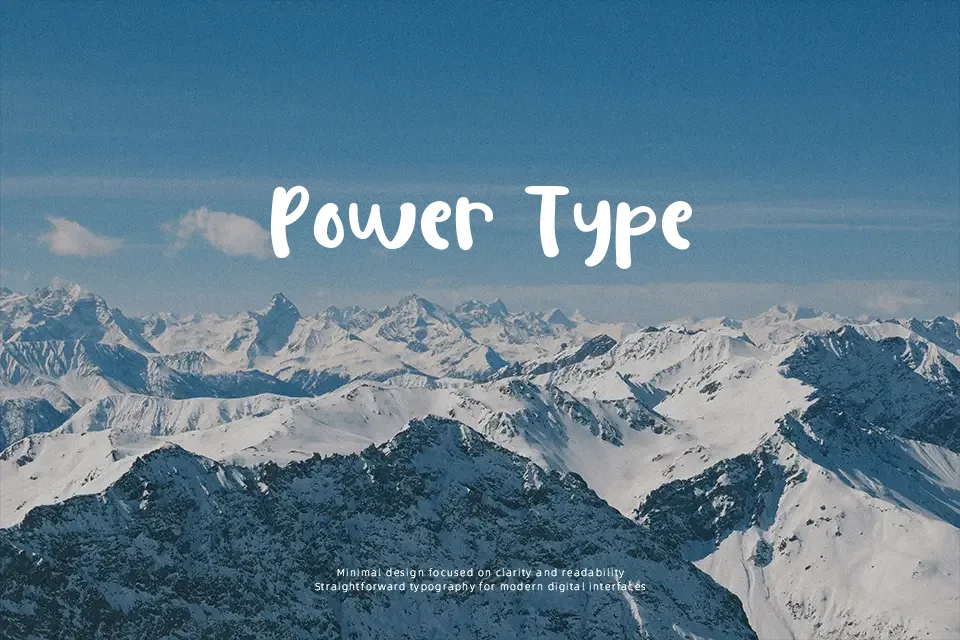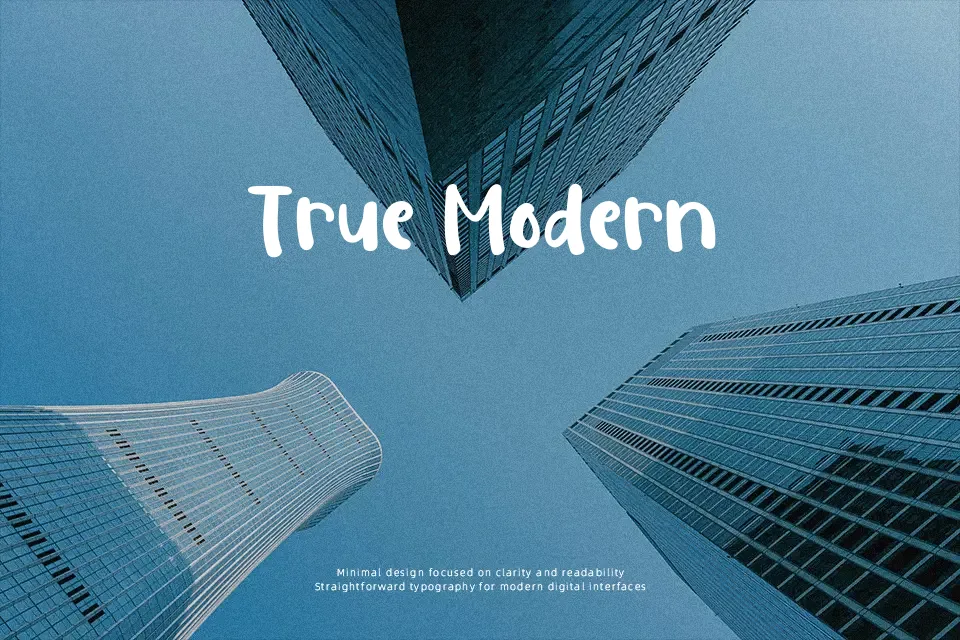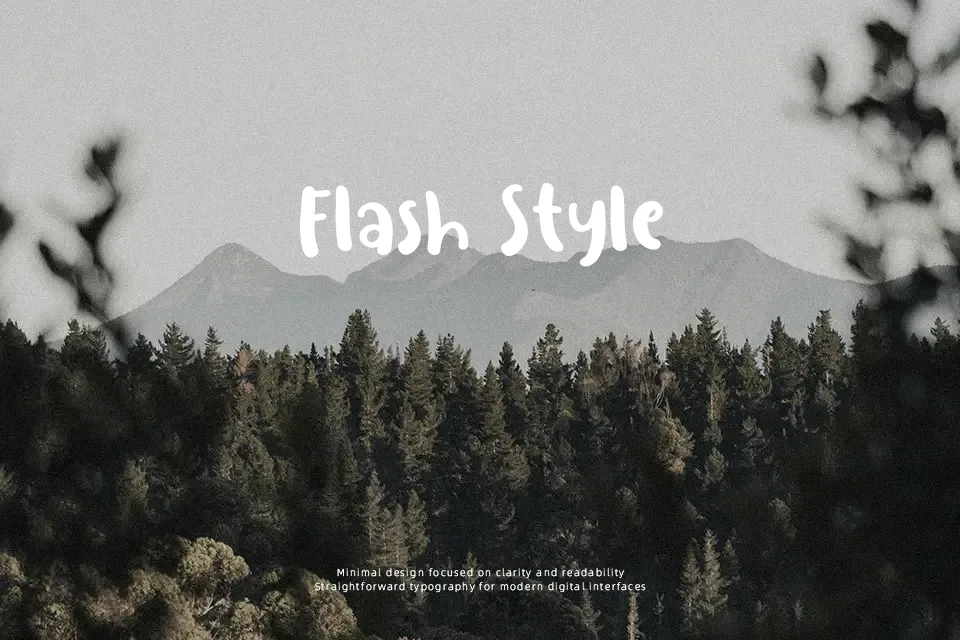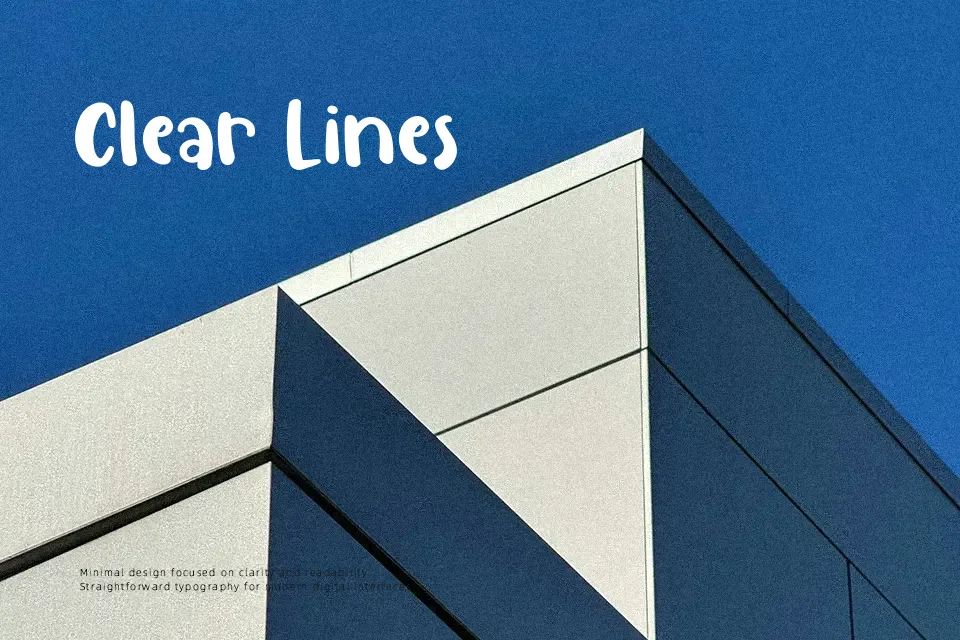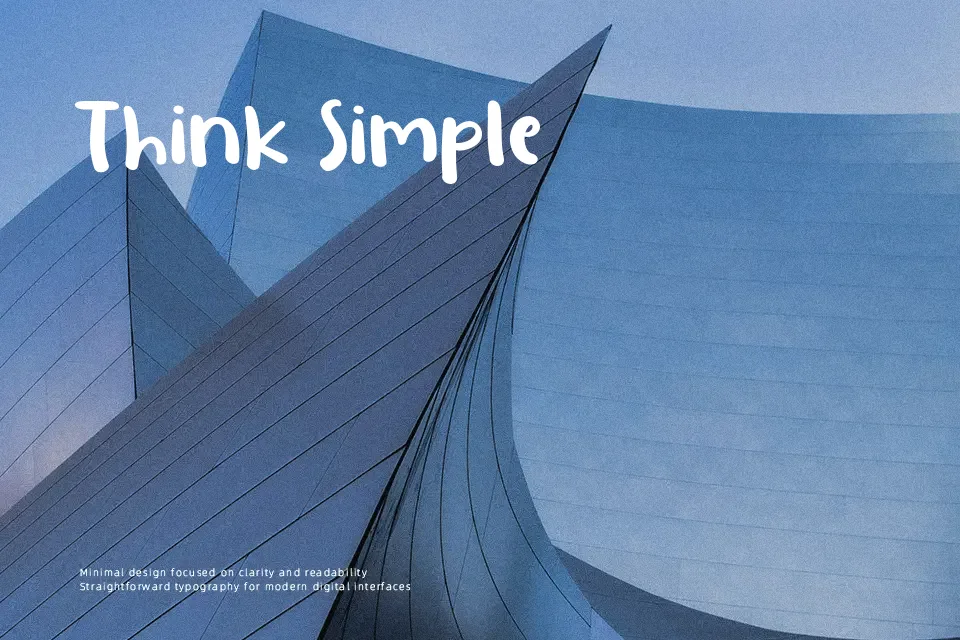
Sunday Vibes Font
Designed by Erlina Graphic
Sunday Vibes Font features rounded contours, heavy stroke weights, and bouncy vertical alignment that create an animated, hand-drawn appearance. The letterforms display low stroke contrast with softened terminals, giving every glyph a smooth and approachable silhouette. Generous interior counters preserve legibility across short phrases, while the proportional spacing keeps character pairs neatly organized across large titles. This typeface functions effectively on merchandise graphics, cartoon title cards, and festive greeting stationery. However, the bulky outlines and playful irregularities make the design less suitable for continuous body text or compact user interface layouts. The heavy weight provides dependable contrast against bright background artwork.
Best For: cartoon title cards, children’s book covers, playful merchandise, craft product labels
Not Ideal For: continuous body text, corporate documentation, technical manuals, compact mobile UI
Perfect for branding, headline, and kids, with a bold and cartoon style.